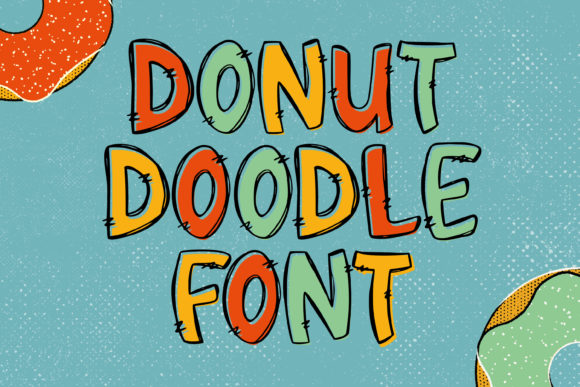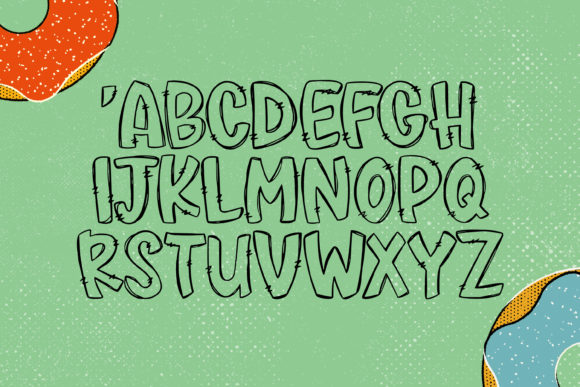
Donut Doodle Font: A Cute Handwritten Font for Playful Designs & Cricut!
About the Donut Doodle Font
Explore the possibilities with Donut Doodle Font, a font that offers both beauty and functionality. Donut Doodle is a cute hand-drawn display font, great for creating outstanding designs.
Donut Doodle’s playful, hand-drawn style shines in headlines, short text blocks on packaging, and eye-catching posters. It’s ideal for projects needing a friendly, approachable feel, such as children’s books, branding for bakeries or cafes, or whimsical social media graphics. Avoid using it for body text or lengthy paragraphs; its informal nature hinders readability in extended passages.
Consider pairing Donut Doodle with a clean sans-serif like Open Sans for a balanced contrast, or a more structured serif font such as Lora for a sophisticated yet playful combination. A simple geometric sans-serif would also provide a modern counterpoint.
Its core personality is undeniably cheerful and informal, making it unsuitable for serious or corporate applications. The hand-drawn quality adds a touch of handmade charm, perfect for projects seeking a lighthearted and approachable aesthetic.